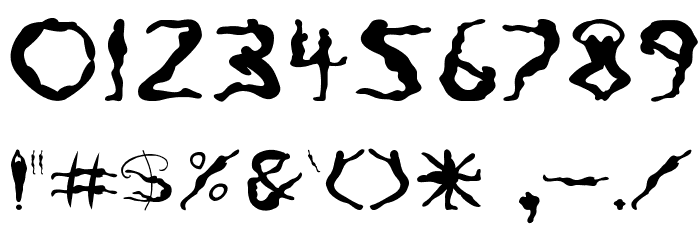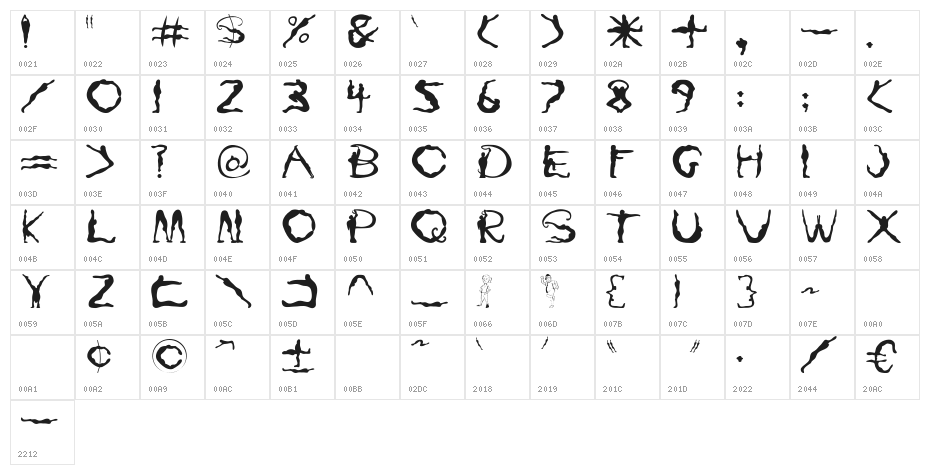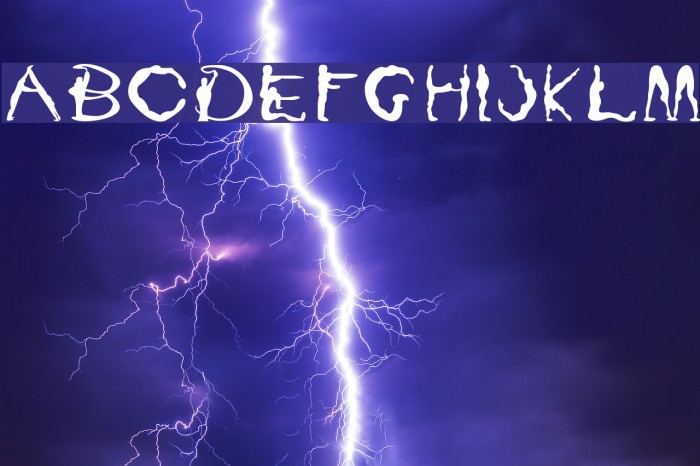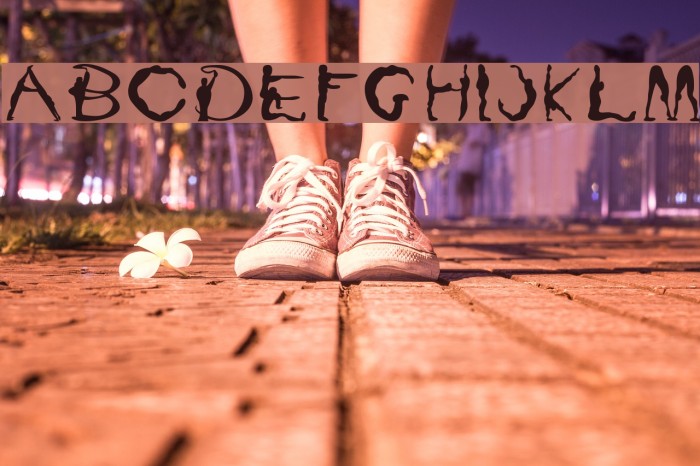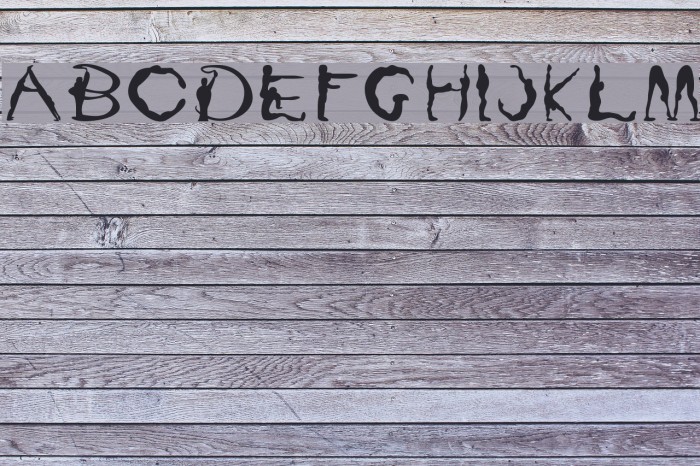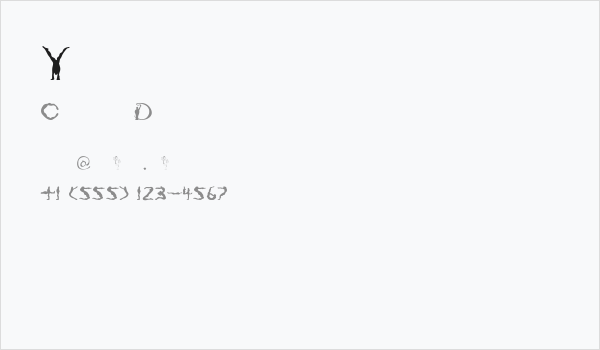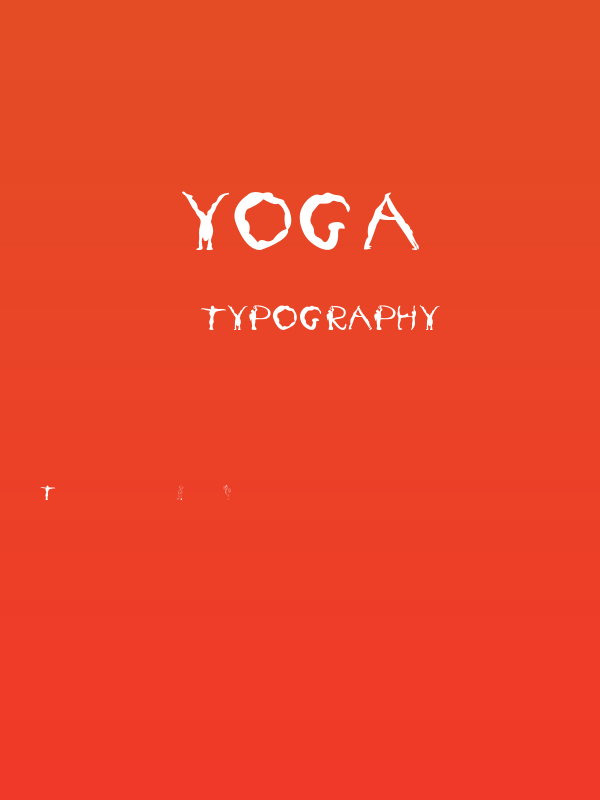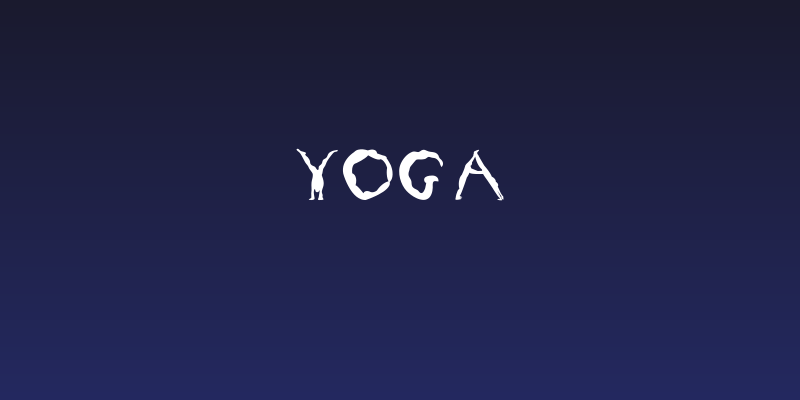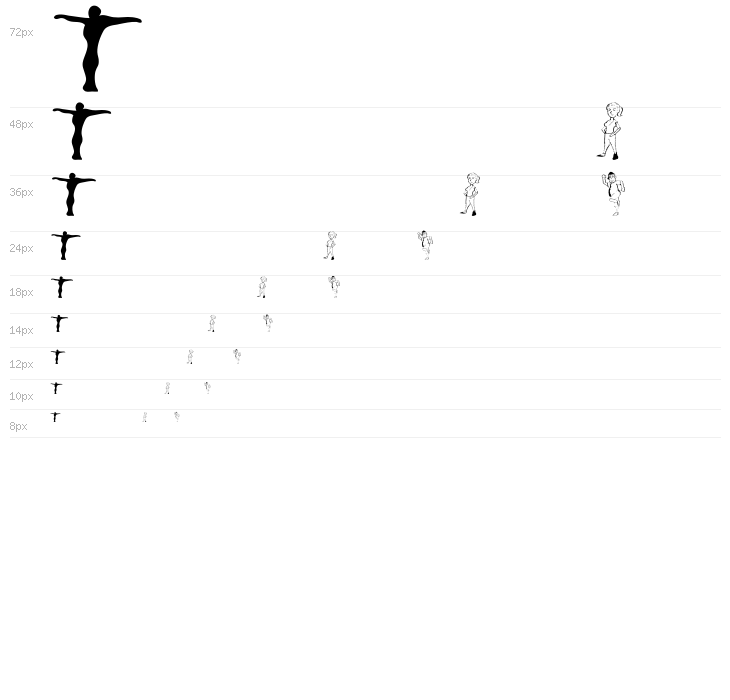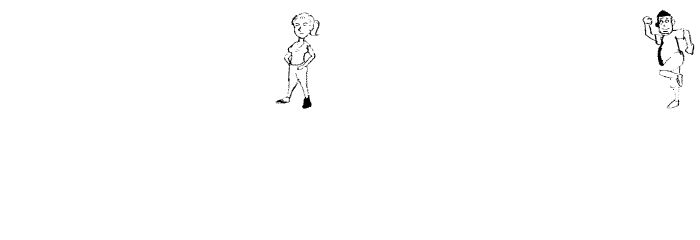
Yoga Font
Yoga Description
This font features a unique and playful design, with each character resembling a yoga pose or a fluid, organic shape. The letters are bold and have a hand-drawn appearance, giving them a whimsical and artistic feel. The strokes vary in thickness, adding a dynamic and lively quality to the text. The overall style is decorative and unconventional, making it stand out in creative projects. The font includes a full set of uppercase and lowercase letters, numbers, and a variety of special characters, each maintaining the distinctive theme.
| Use Case | Logos, Posters, Creative Projects |
| Proposed Projects | Ideal for yoga studio branding, wellness blogs, creative posters, and artistic event invitations. |